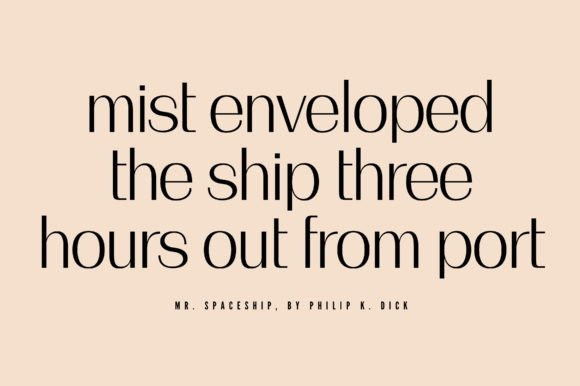
Anima Font
Anima Font, a chic and elegant sans serif typeface that effortlessly captures the essence of modern design. This fluid and graceful typeface, named “Anima,” is a visual symphony that will elevate your creative projects to new heights.
🌟 **Elegance Redefined**: “Anima” is the epitome of refinement. Its sleek, minimalist lines exude an understated charm that speaks volumes. Perfectly balanced letterforms create a sense of harmony, making “Anima” a versatile choice for any design project.
🎨 **Fluid and Versatile**: The fluidity of “Anima” allows it to adapt seamlessly to a wide range of applications. Whether you’re crafting a high-end brand identity, designing a sleek website, or creating captivating print materials, this typeface will effortlessly enhance your work.
📐 **Precision Craftsmanship**: “Anima” has been meticulously crafted with attention to every detail. Its clean and crisp characters ensure legibility at any size, making it equally suitable for headlines, body text, and everything in between.
🌈 **Endless Possibilities**: With multiple weights and styles to choose from, “Anima” offers a diverse palette of typographic options. Customize your message with confidence, knowing that “Anima” will always deliver a touch of class and sophistication.
🌐 **Universal Appeal**: “Anima” transcends borders and industries. Whether your audience is global or niche, this sans serif typeface communicates a universal language of elegance and modernity.
Elevate your design game with “Anima.” Embrace the chic, elegant, and fluid world of modern typography, where every letter tells a story of sophistication and style. Unlock the potential of your projects and make a lasting impression with “Anima” today.